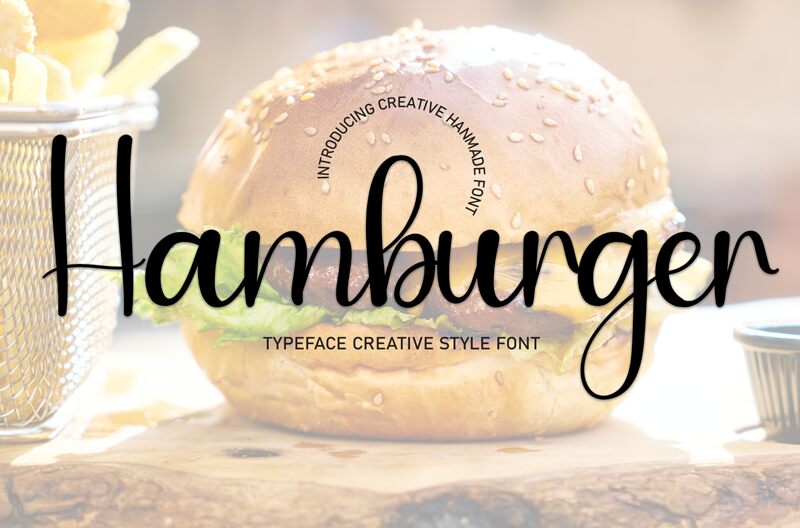
Hamburger
With a whimsical touch, Hamburger, designed by Andi Moz, is a semi-light, handwritten font that exudes sweetness and friendliness. Its charming style adds a playful element to any design project.
Perfect for creating wedding invitations or crafting heartfelt cards, this cute and fun font captures the essence of joy and celebration. Hamburger brings a touch of personality to your designs, making it ideal for capturing attention and conveying warmth in any creative endeavor.
Let your imagination run wild as you infuse playfulness into your next project with this delightful handwritten typeface.